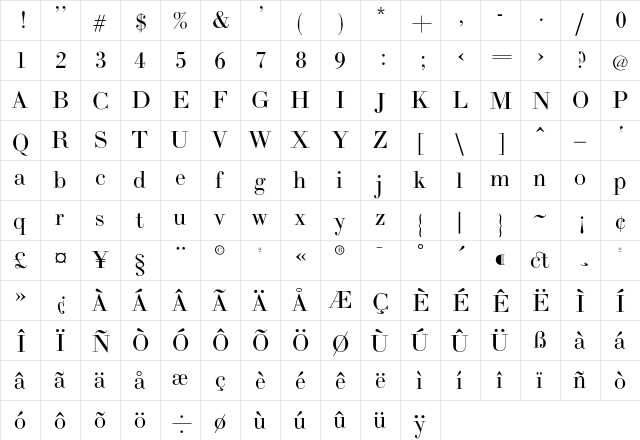
BodoniL Regular
Design Context for BodoniL Typeface
BodoniL is a composed and adaptable typeface that performs quietly and consistently across a wide range of design contexts.